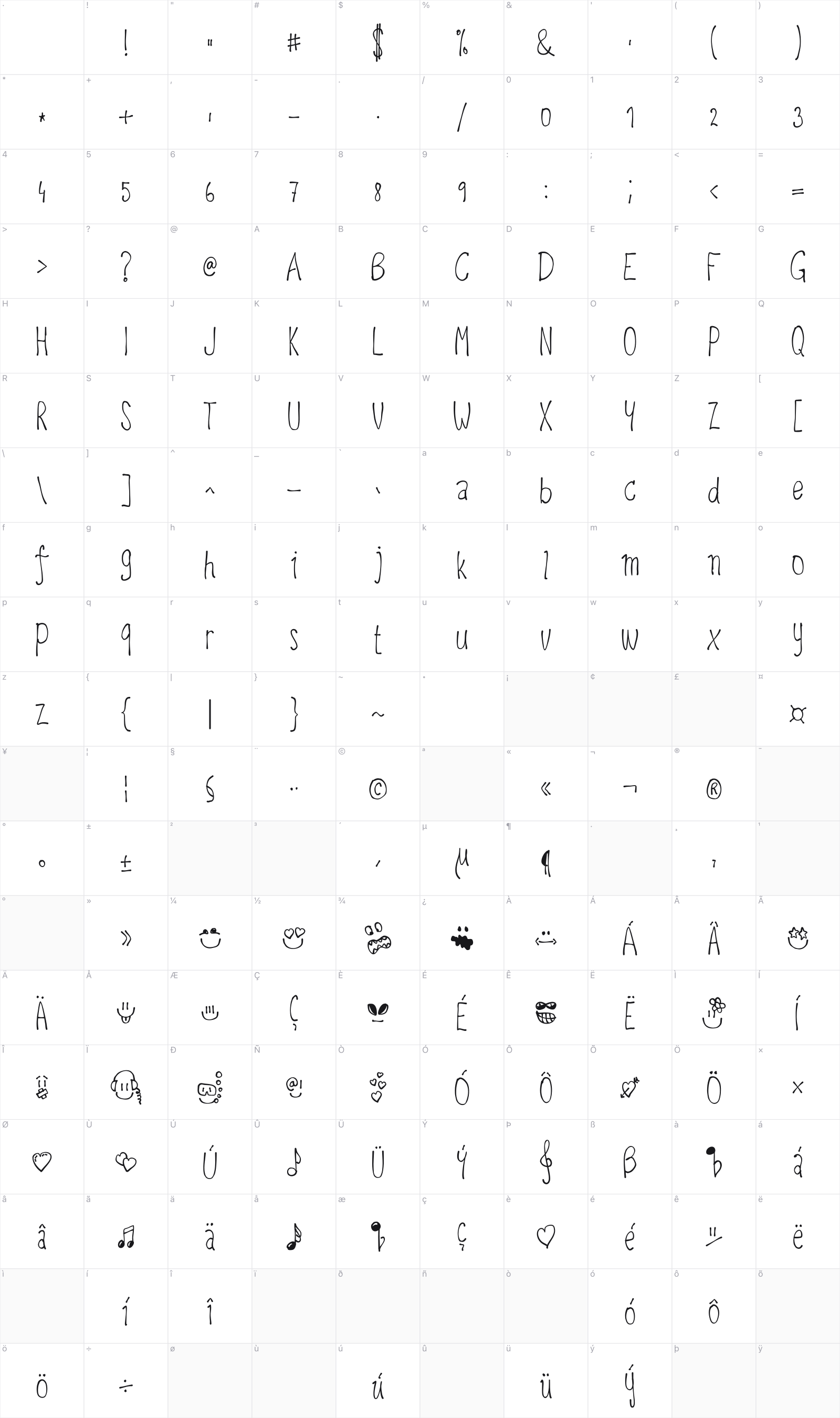
Upirpaw
Upirpaw is a thin, condensed handwritten face by Vaclav Krejci with a quirky, slightly offbeat rhythm to its letterforms. The narrow proportions and lightweight strokes keep it feeling airy and informal, like quick notes jotted in a personal journal. It works best where you want genuine handwritten character without heaviness, such as personal branding, packaging details, or short-form text that needs to feel approachable.